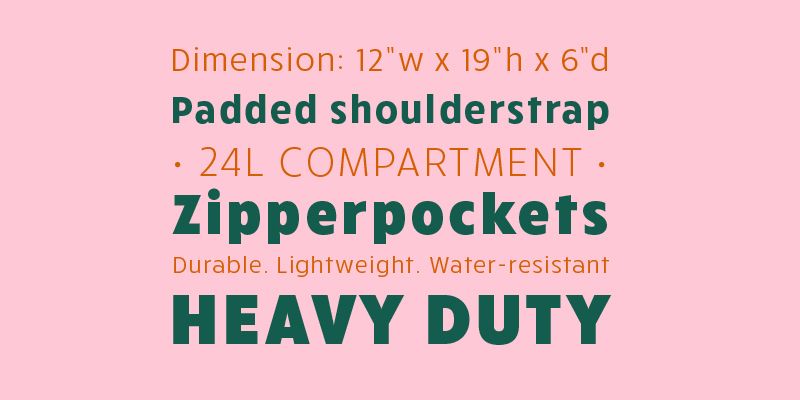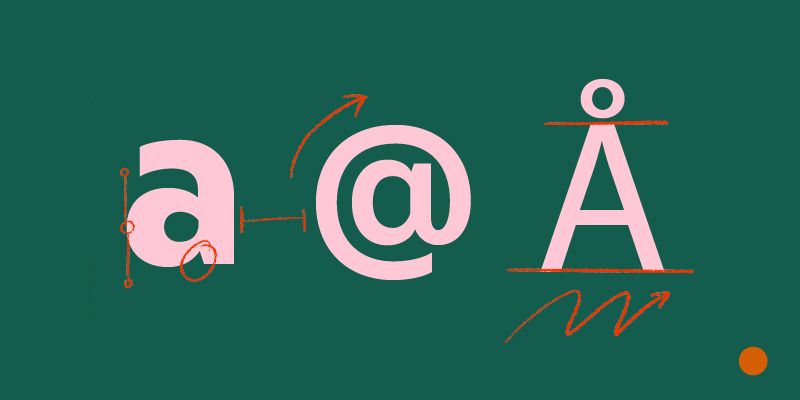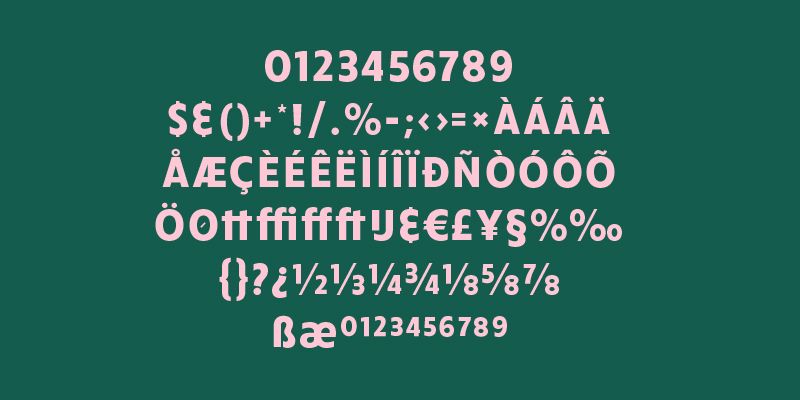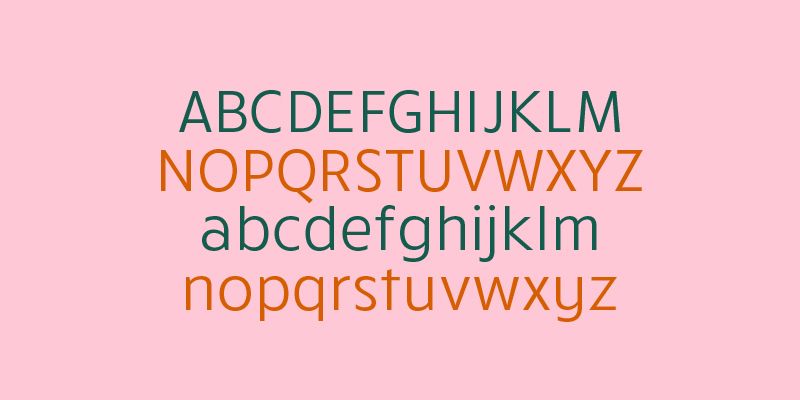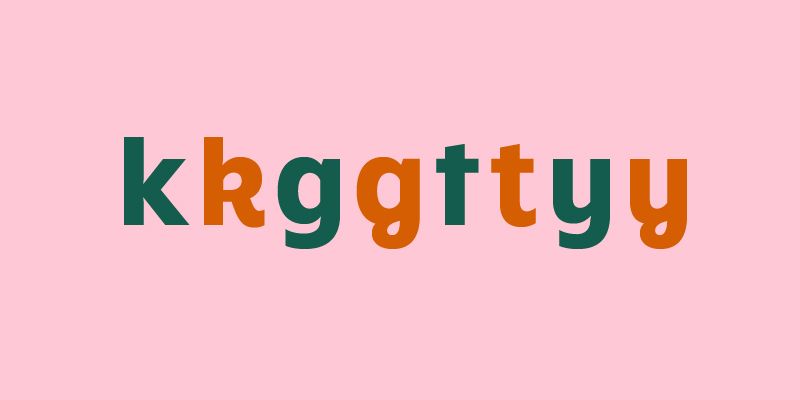
Rucksack is a modern and versatile sans serif type family with six weights varying from black to light. Mainly inspired by typefaces like the late 1920’s geometric Futura by Paul Renner. Rucksack is build out of nice clean shapes with friendly characteristics. It has some indented stems and tall x-height for better legibility. This typeface works well on paper for editorial purposes and does a great job on display as well.